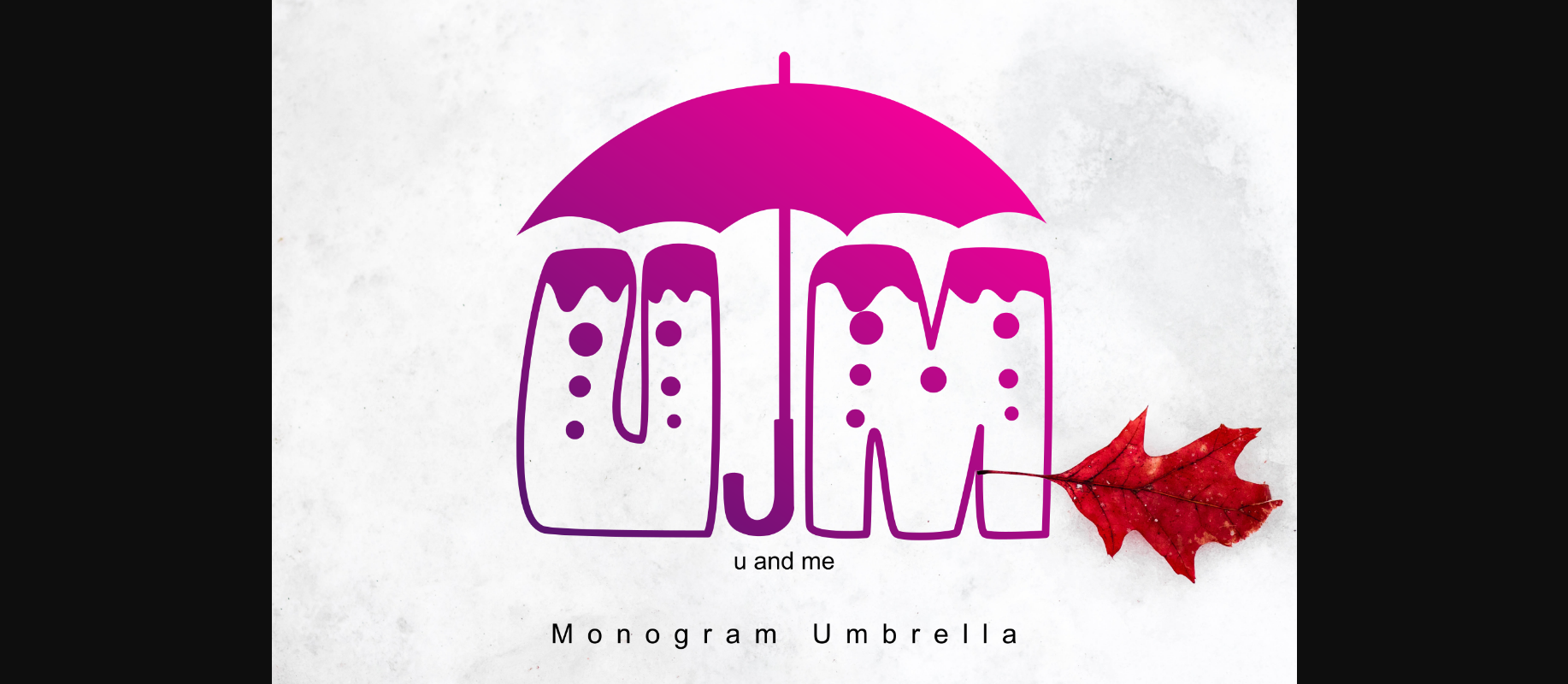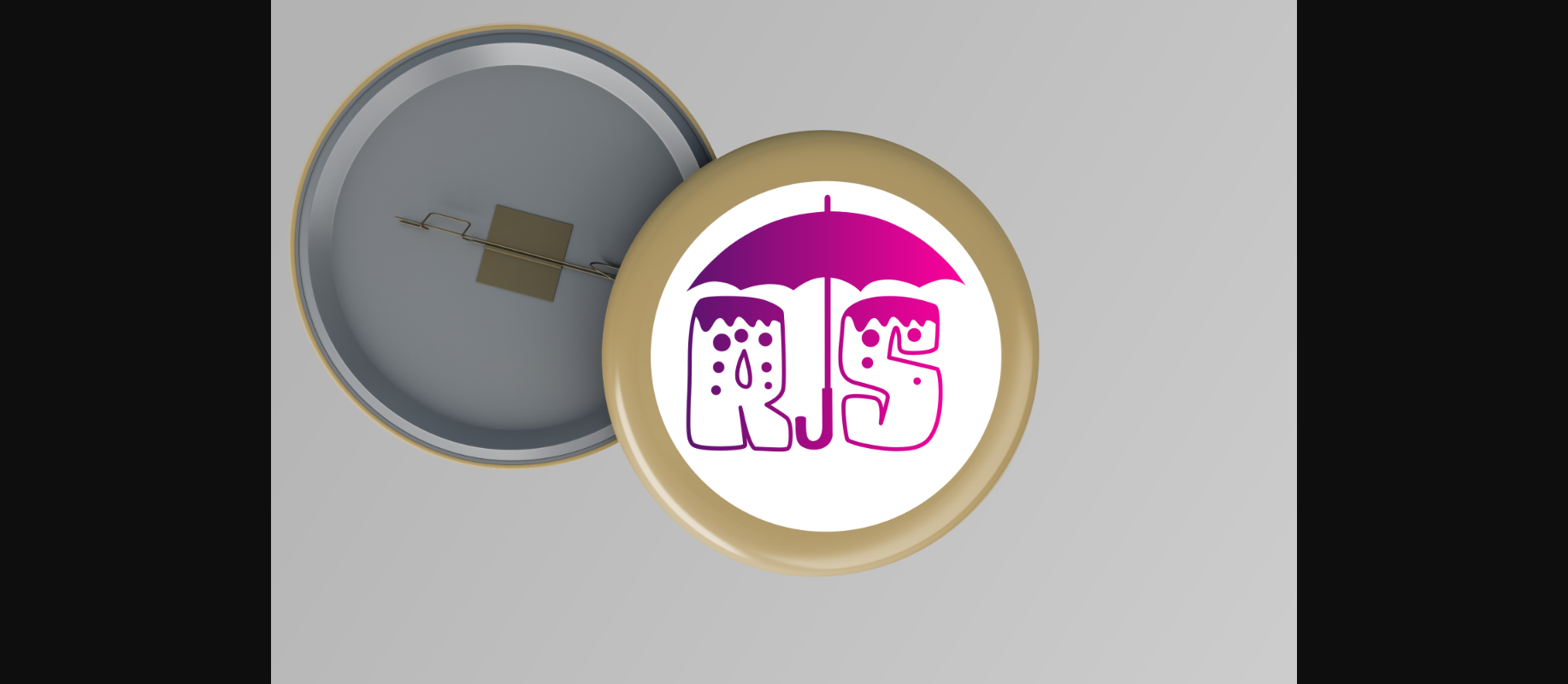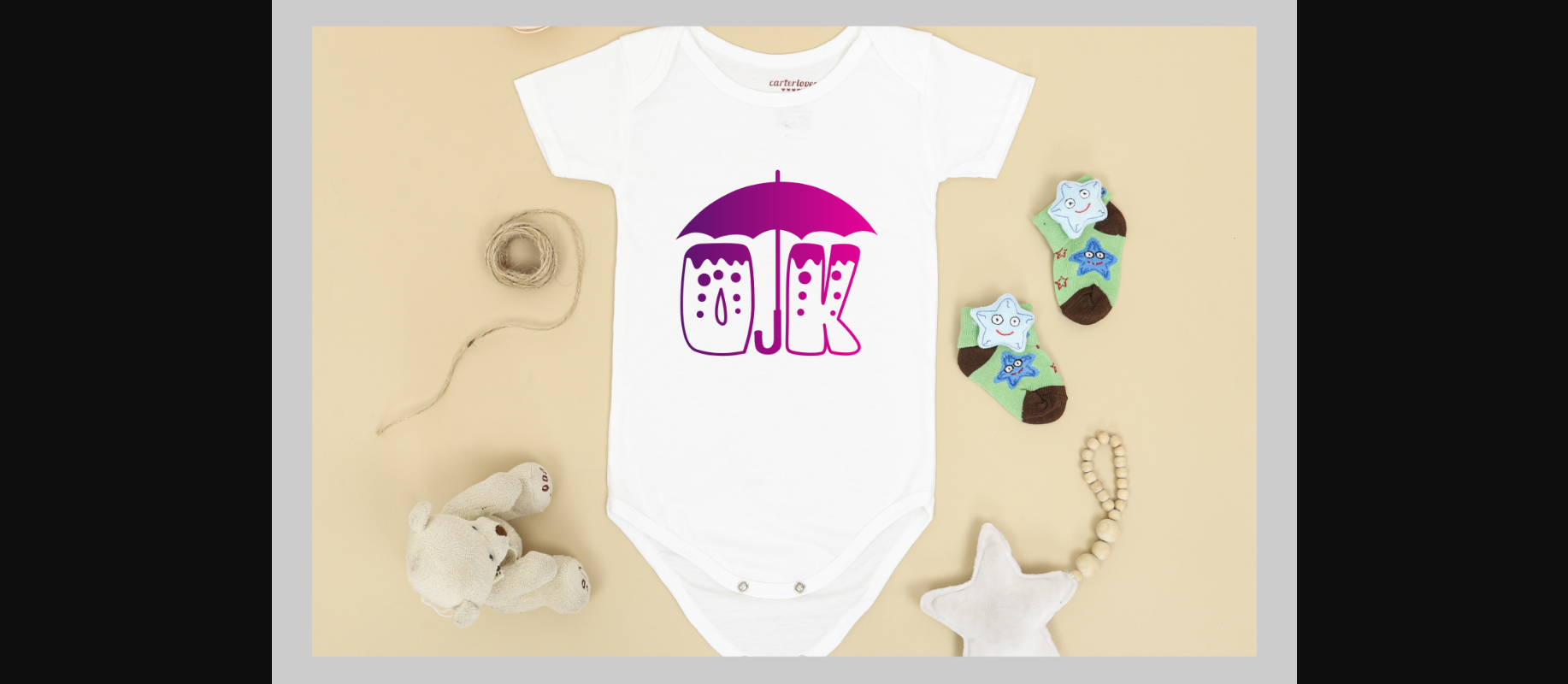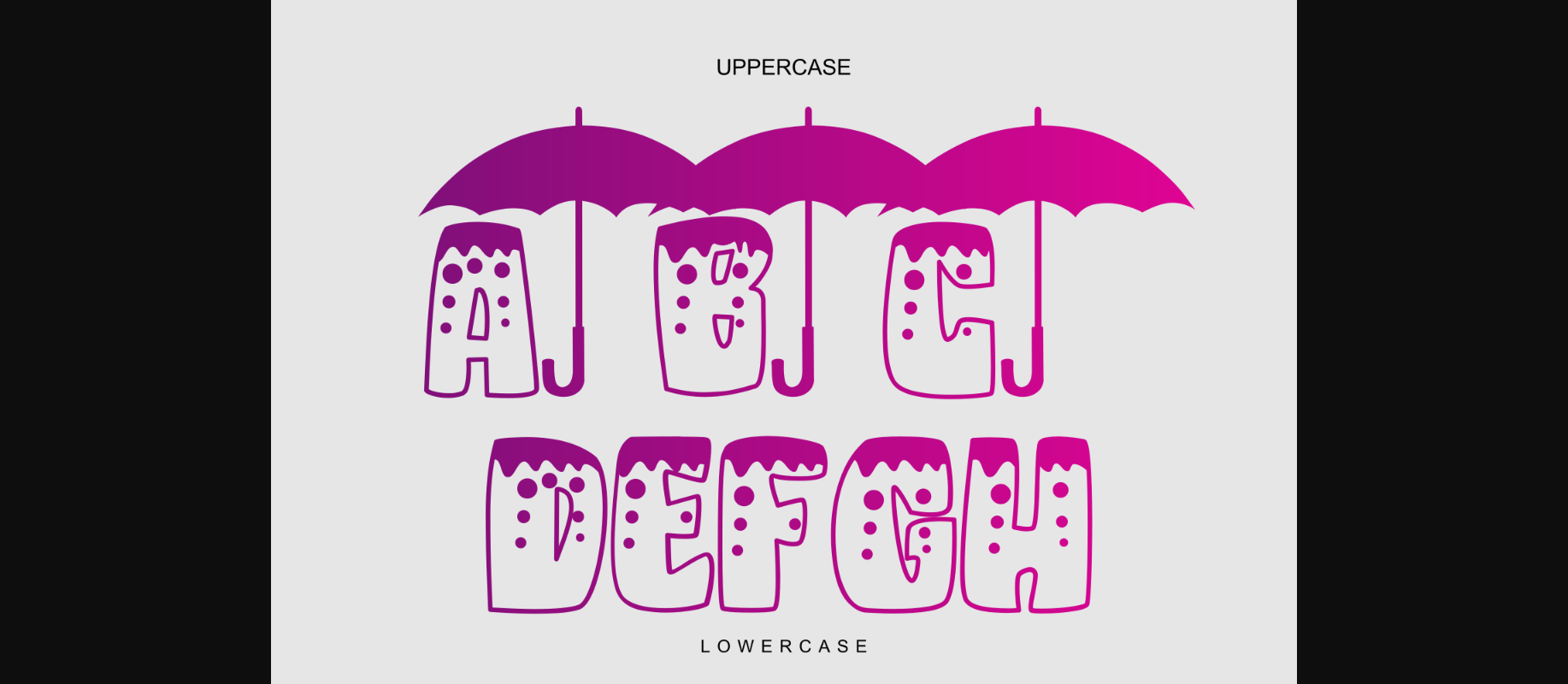
About Monogram Umbrella Font
Monogram Umbrella is a highly detailed and sweet decorative font. Add this quirky-looking font to each of your children projects or favorite design ideas, and you will be astounded by the outcome.